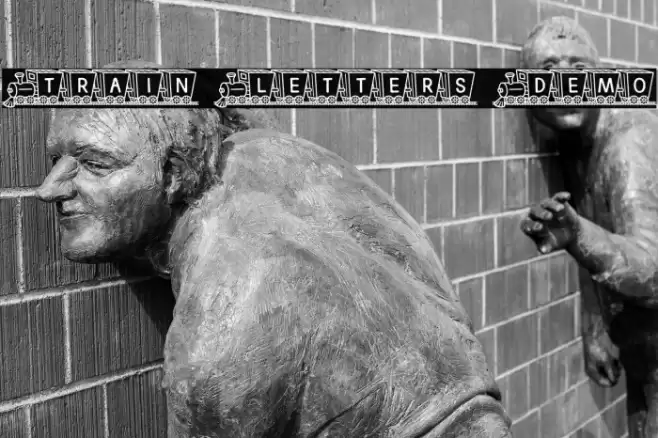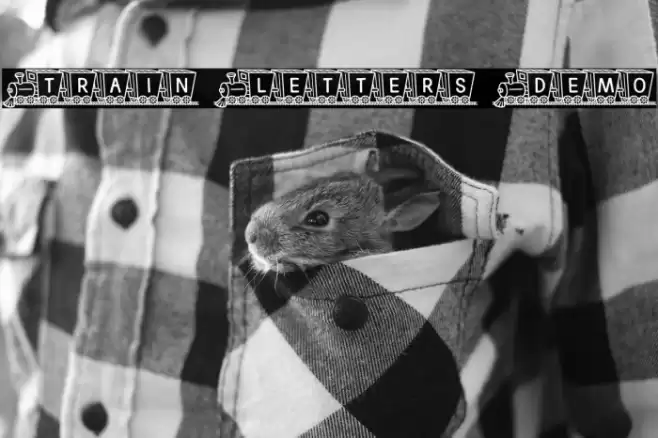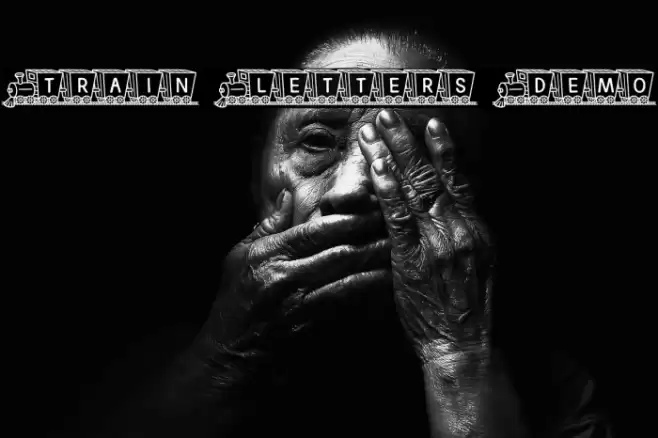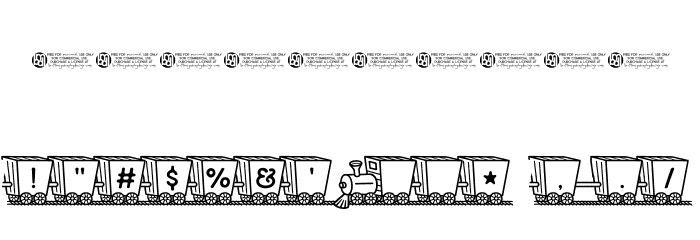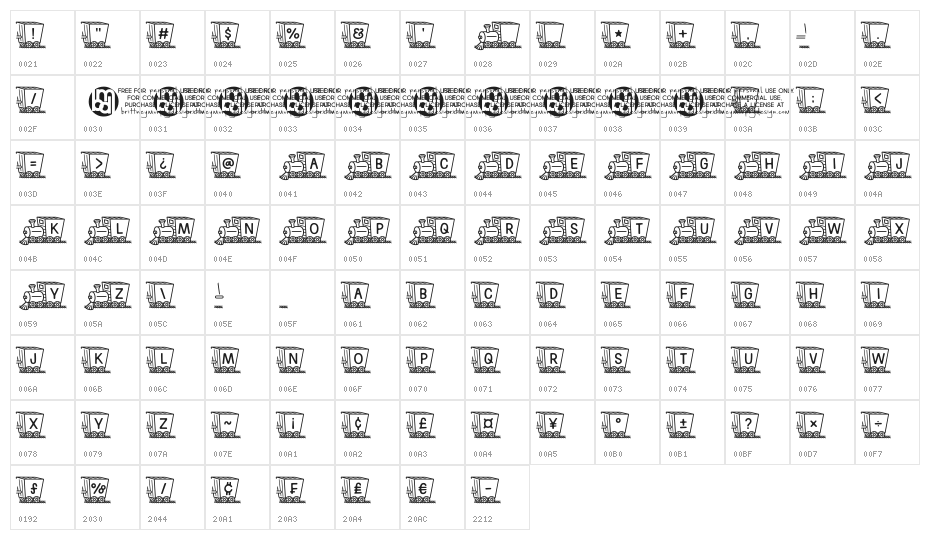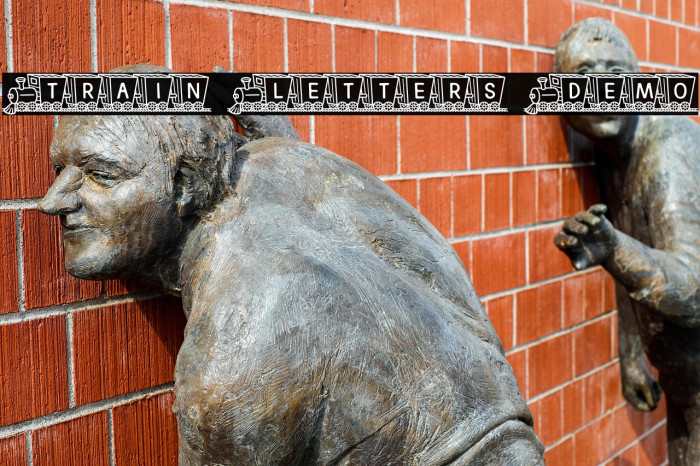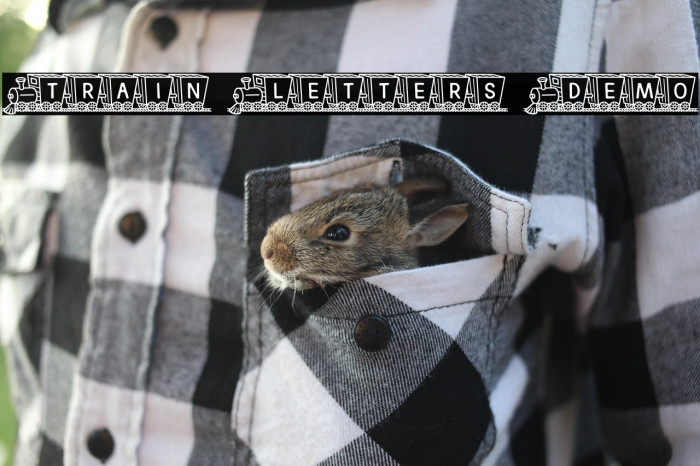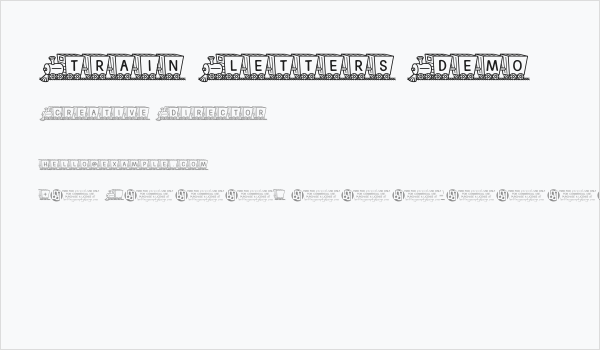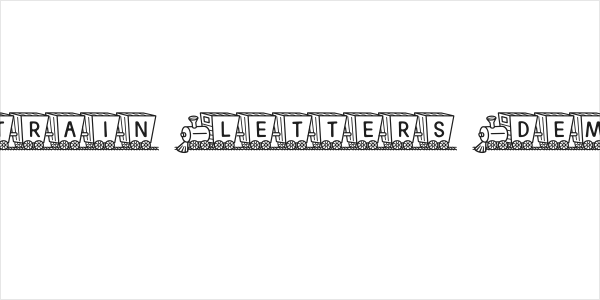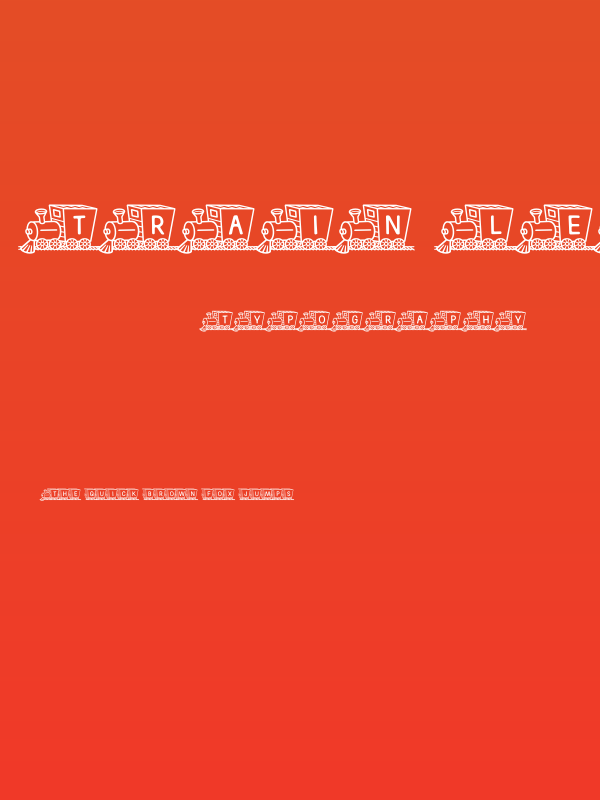
Train Letters Demo Font
Train Letters Demo Description
This playful and whimsical font features letters and numbers designed to resemble train cars, each with a distinct outline and decorative elements. The characters are bold and cartoonish, with a hand-drawn style that adds a sense of fun and creativity. The design is consistent across uppercase letters, lowercase letters, numbers, and special characters, all maintaining the train car theme. The font is ideal for children's projects, educational materials, and any design that seeks to evoke a sense of adventure and imagination.
A playful, train-themed font with a hand-drawn, cartoonish style from Kids fonts.
- Proposed Projects: Ideal for children's books, educational posters, playful invitations, and themed party decorations.
- Overall Style: Playful, Whimsical, Decorative
- Use Case: Headlines, Logos, Children's materials